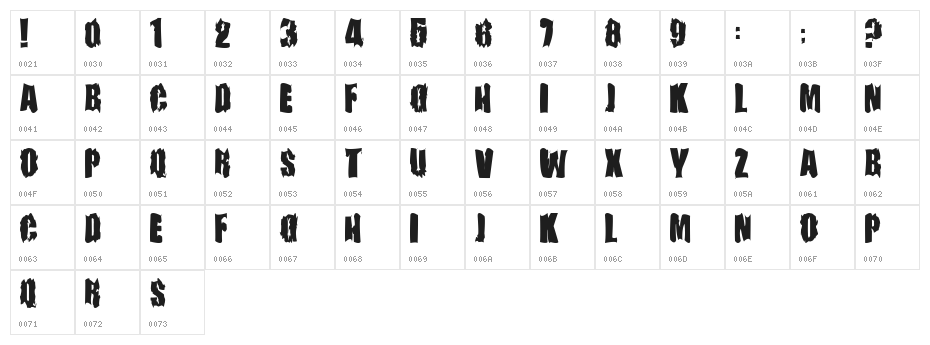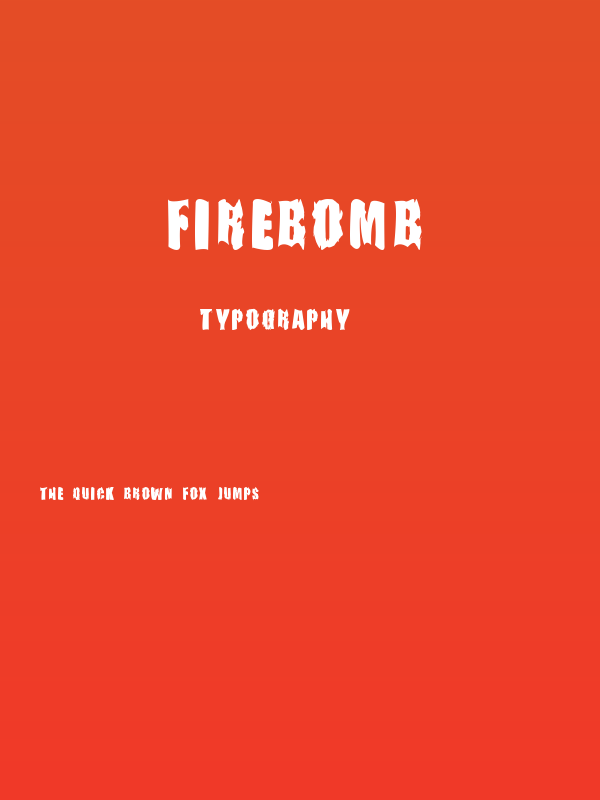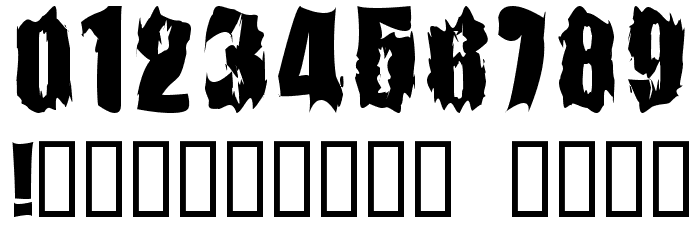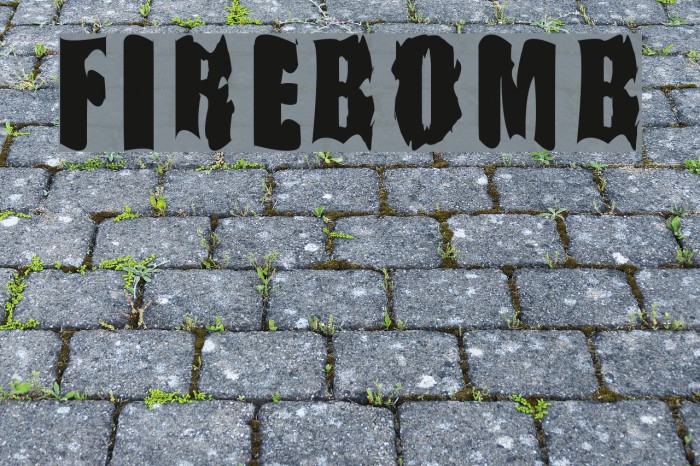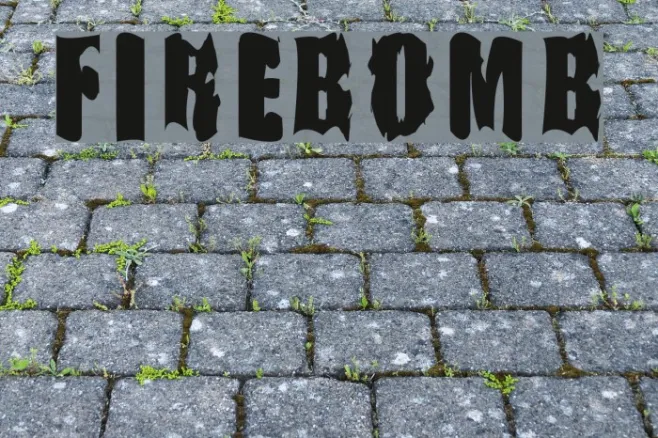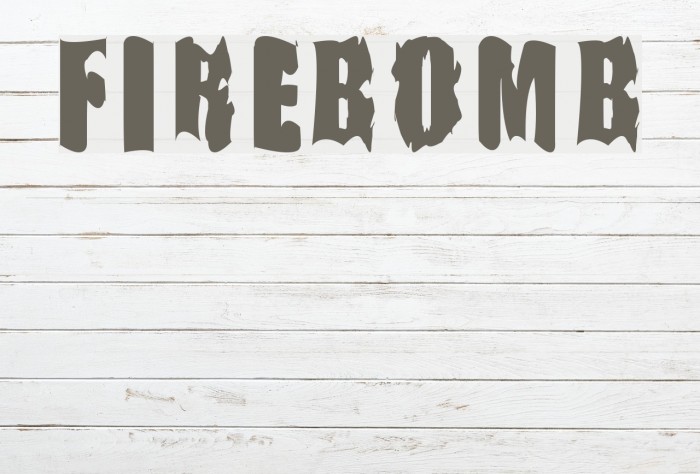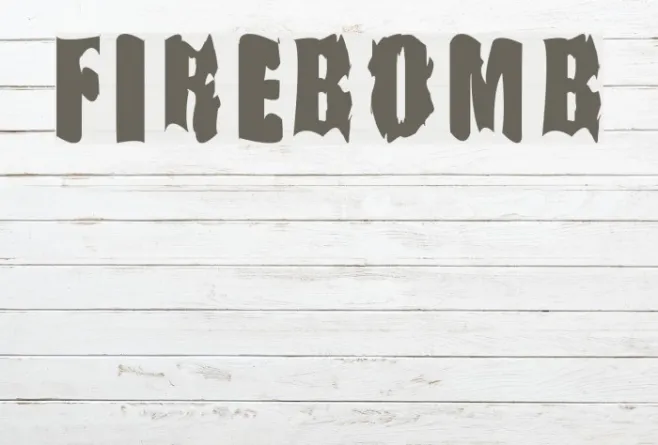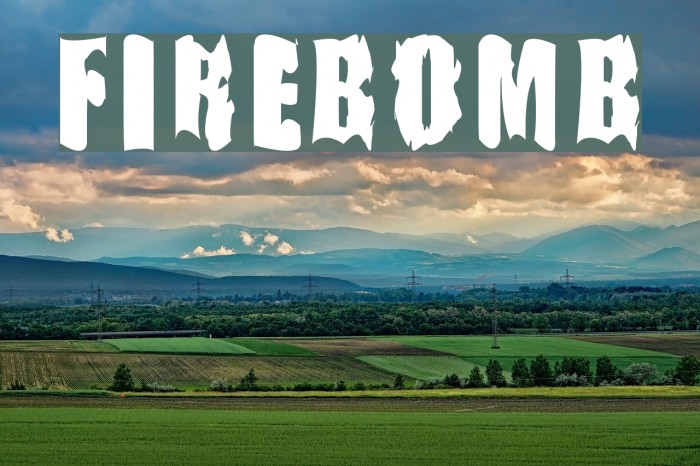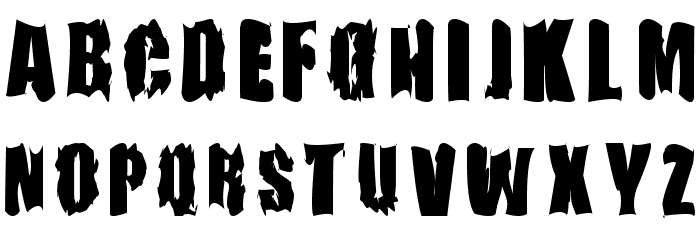
FireBomb Font
FireBomb Description
This font features a bold and aggressive style with jagged, flame-like edges that give it a dynamic and intense appearance. The characters are heavily stylized, with irregular shapes that suggest movement and energy, reminiscent of fire or explosions. The uppercase and lowercase letters maintain a consistent theme, with each character appearing as if it's been partially consumed by flames. The numbers and special characters follow the same design, ensuring a cohesive look across all glyphs. This font is ideal for projects that require a strong visual impact, such as posters, album covers, or video game titles.